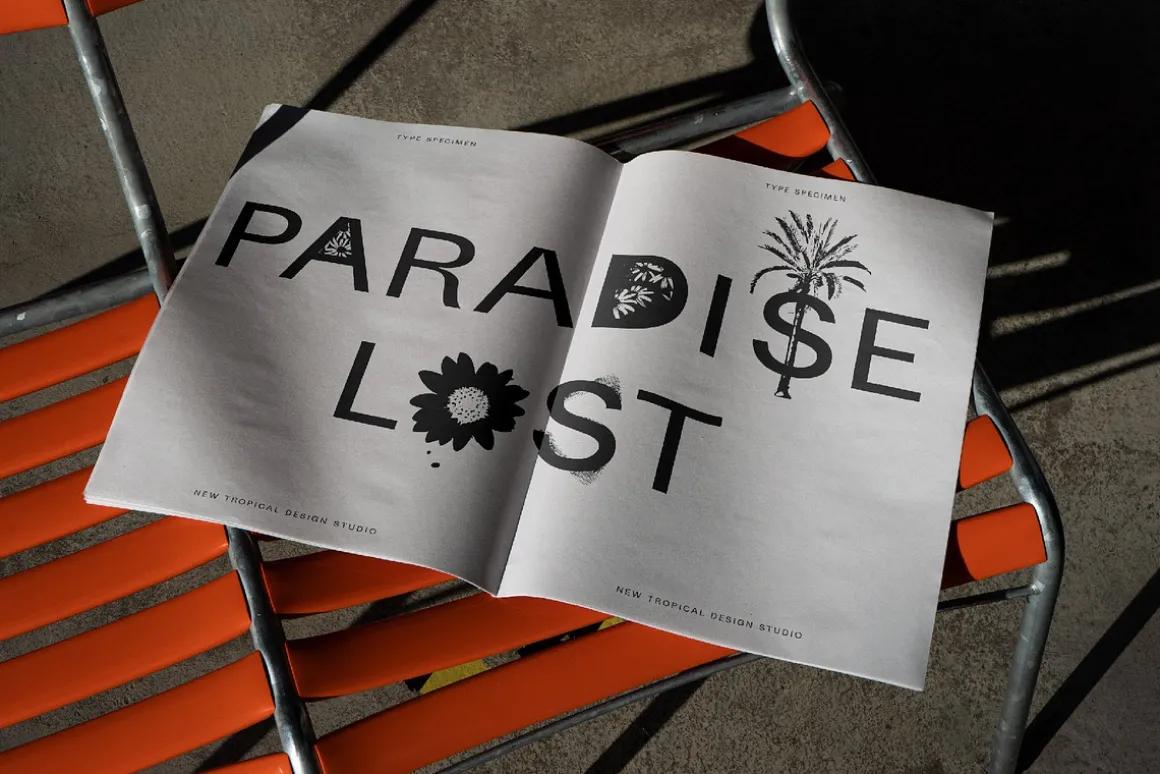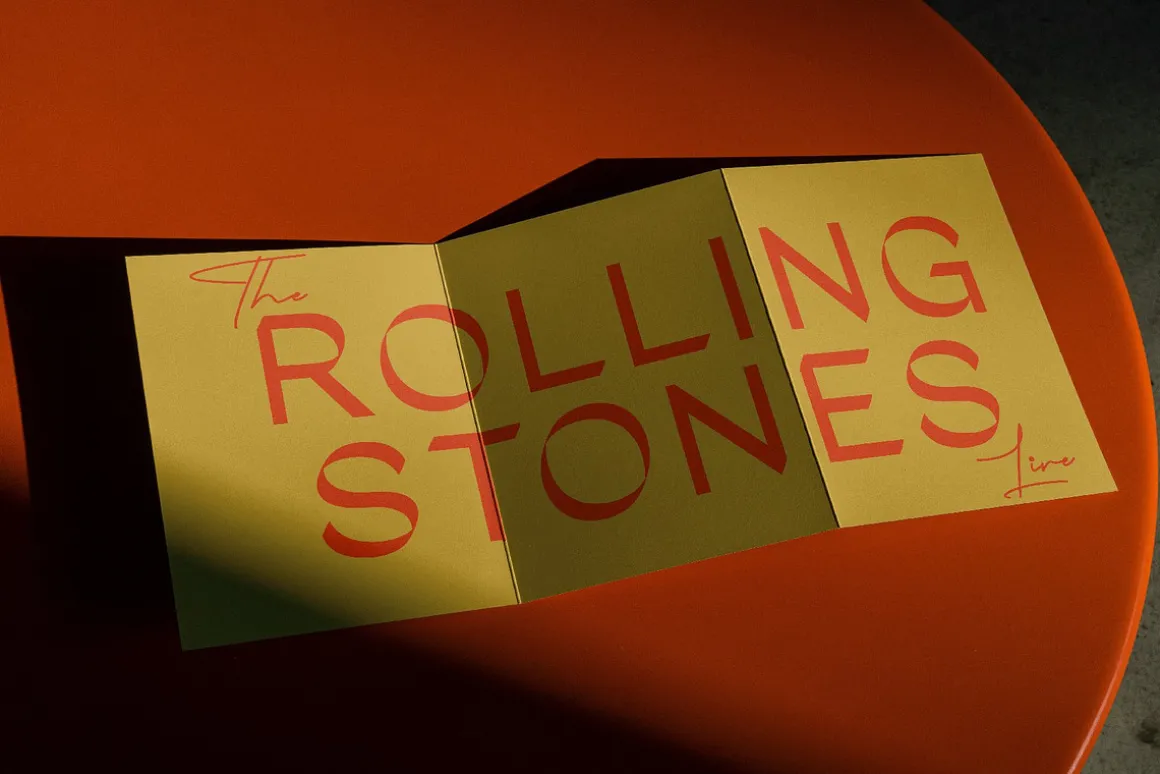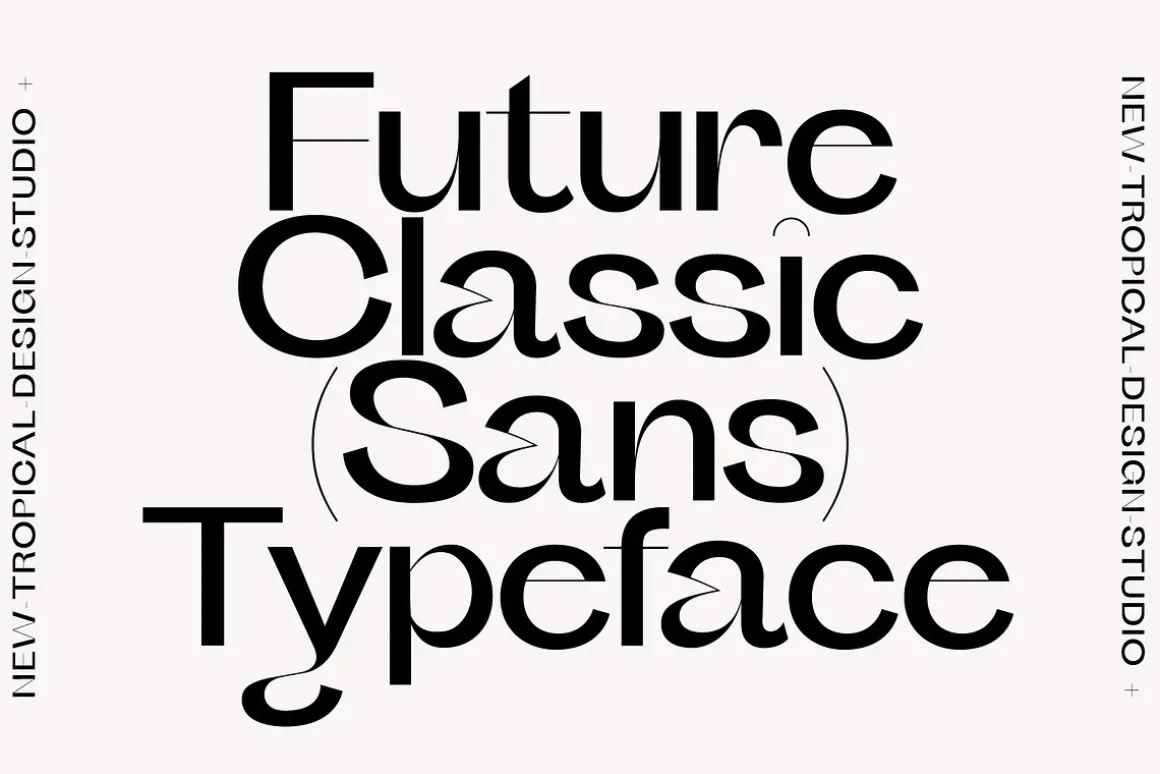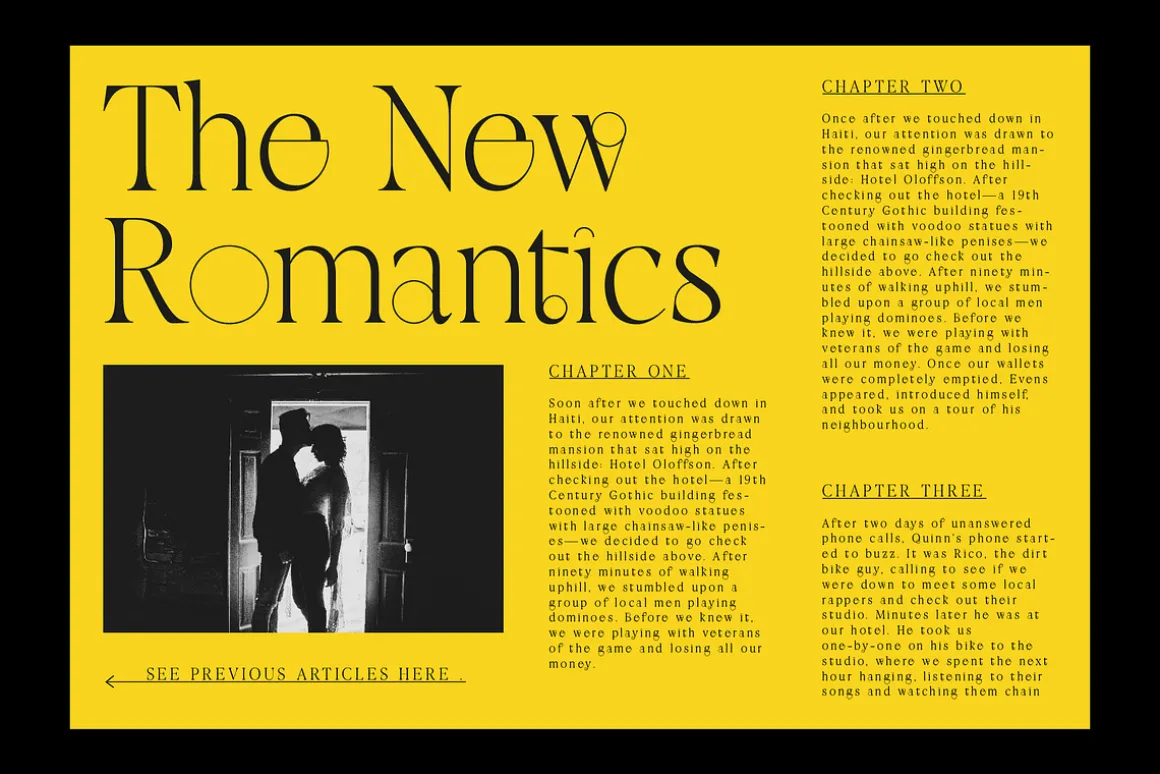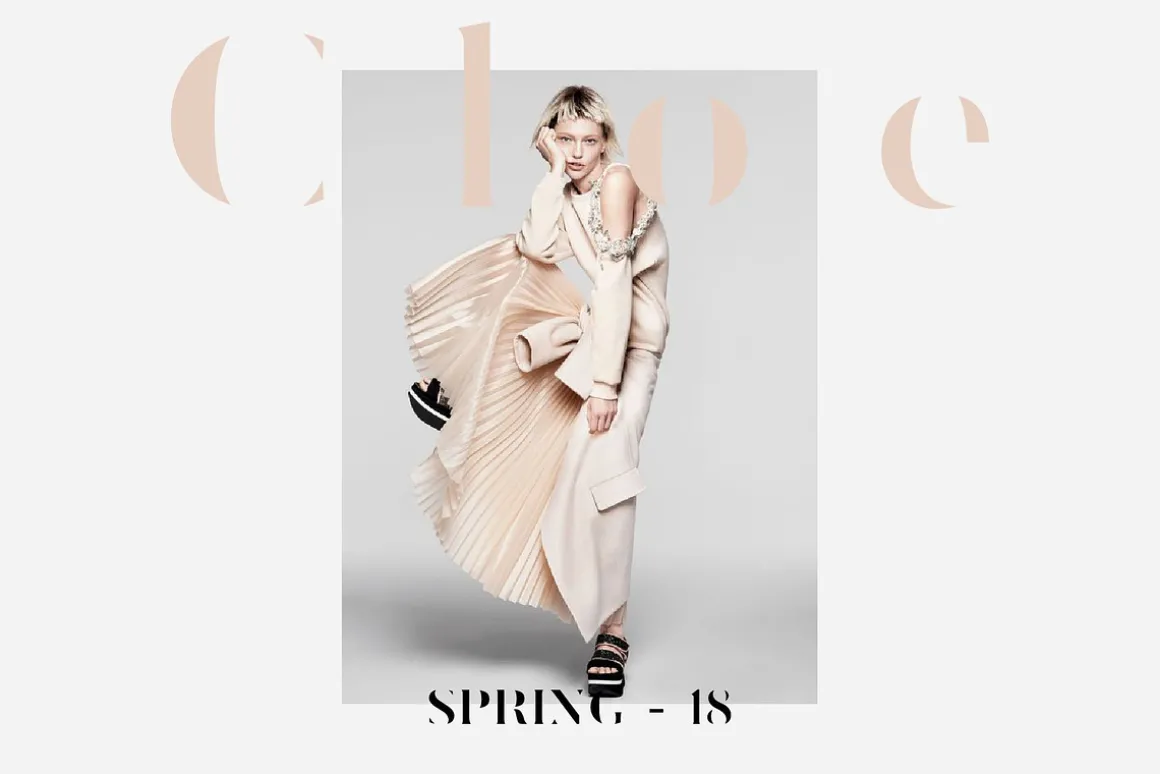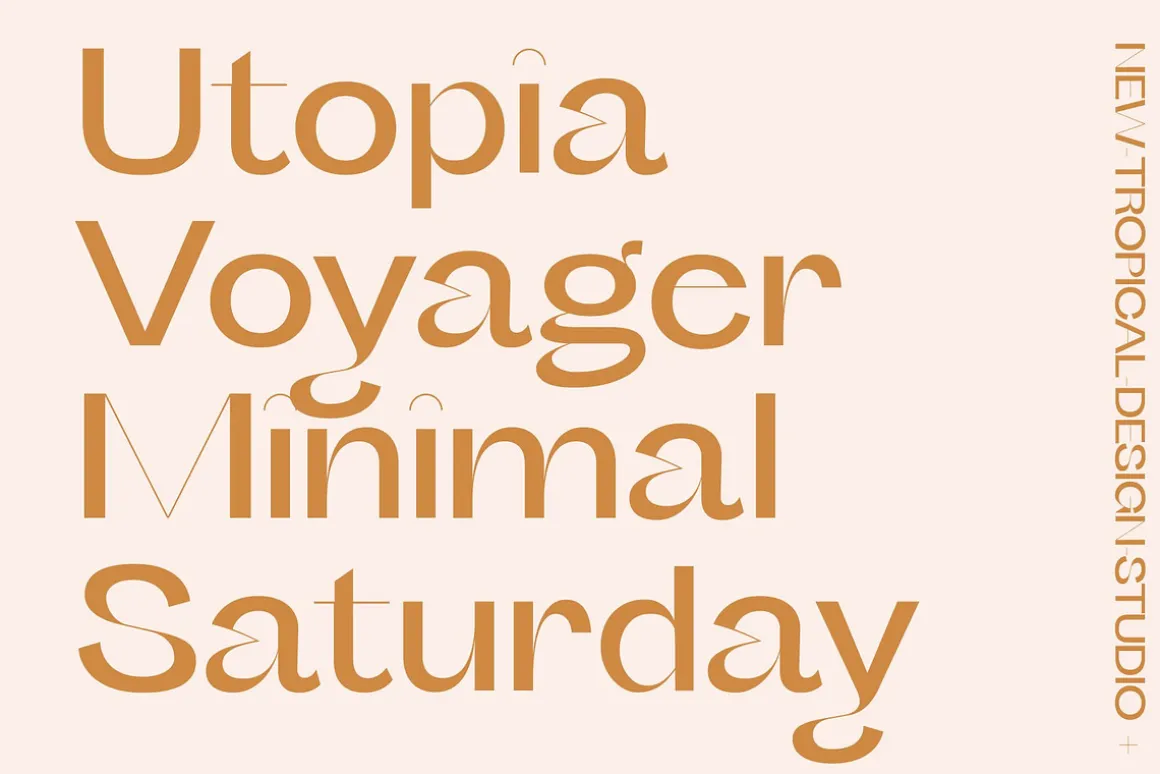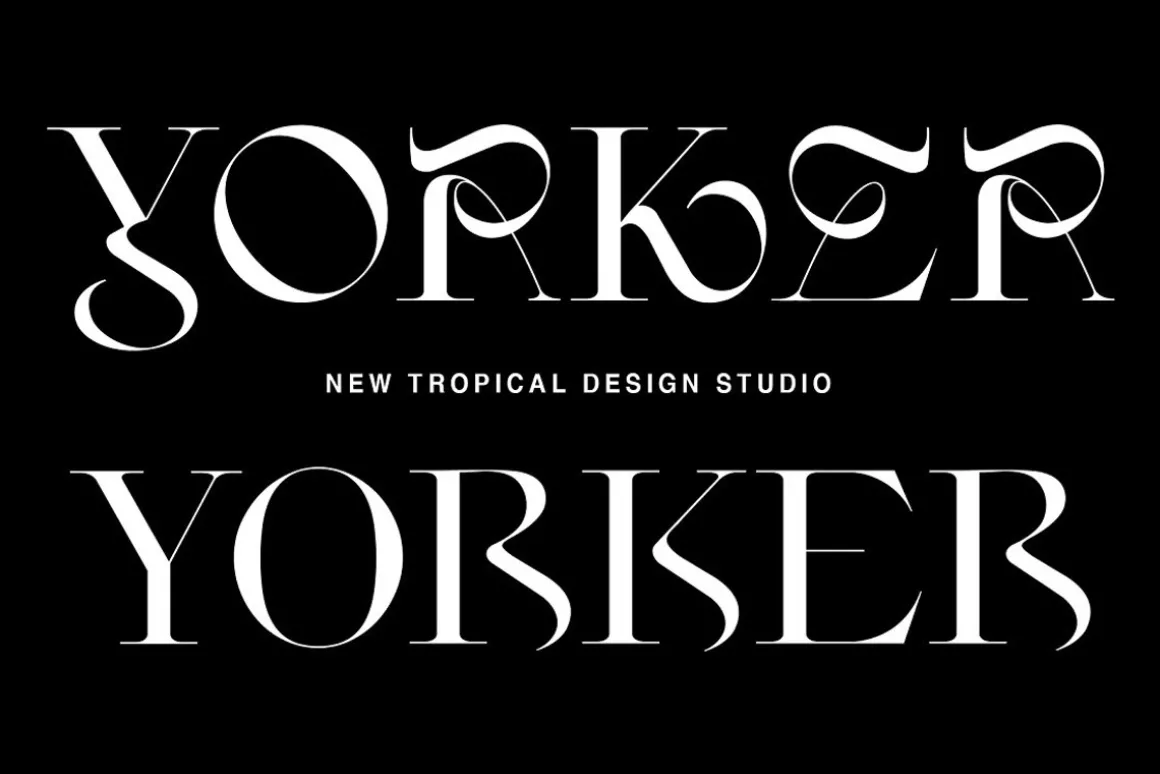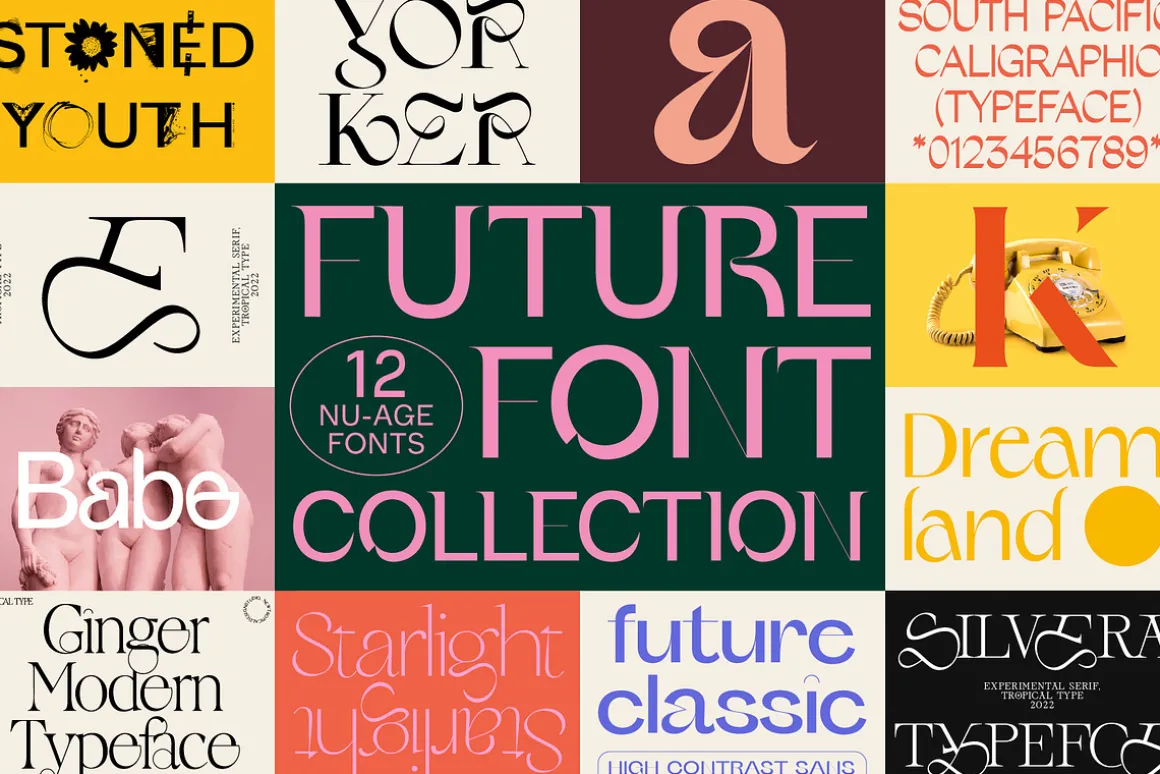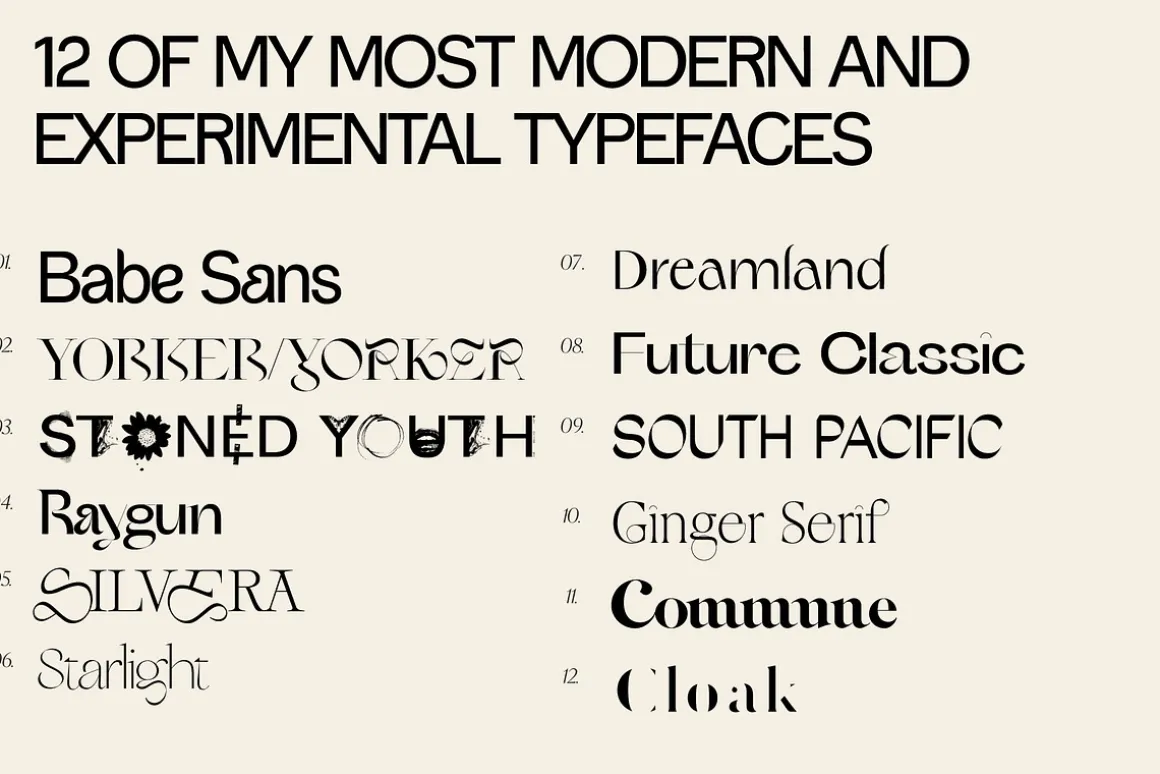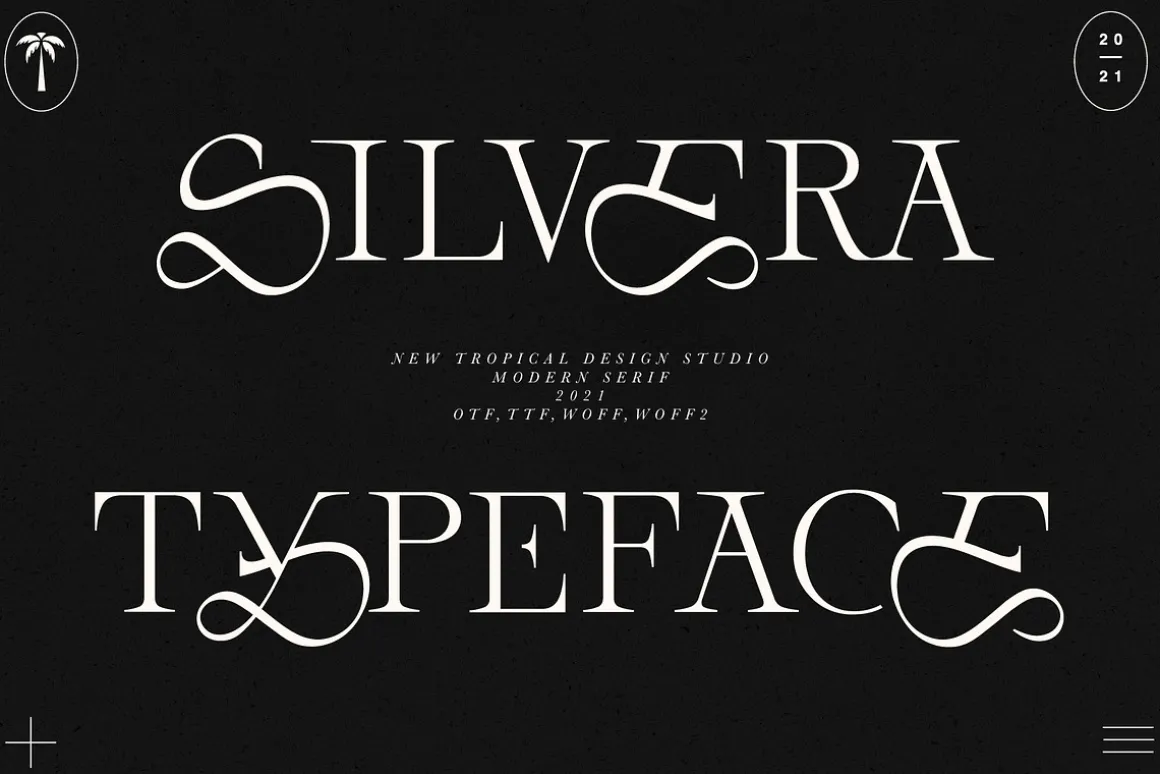
The Future Font Collection is 12 of my more modern, futuristic and experimental display typefaces.All the wild and weird ones in one place! If you have bought one of my previous bundles before, double check you are not doubling up! By getting this bundle you are saving 80%!!!!
Fonts included:
- Babe Sans
- Yorker
- Stoned Youth
- Raygun
- Silvera
- Starlight
- Dreamland
- Future Classic
- South Pacific
- Ginger
- Commune
- Cloak
- uppercase, lowercase, numbers, punctuation
- Multilingual support ( western europe ) see type tester to check for glyphs